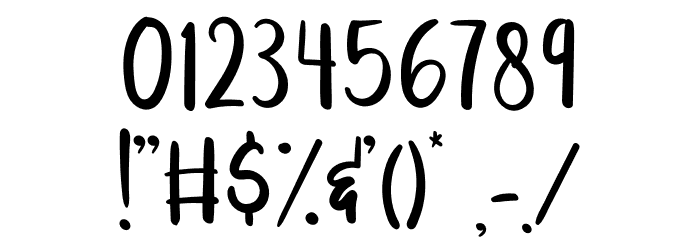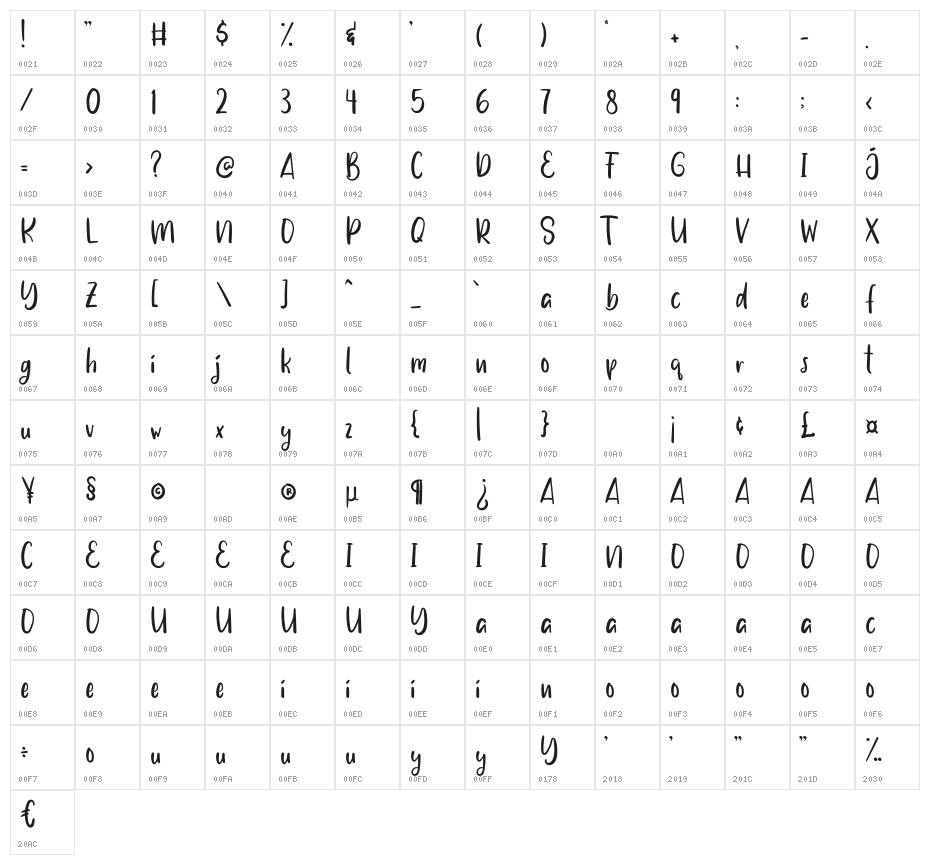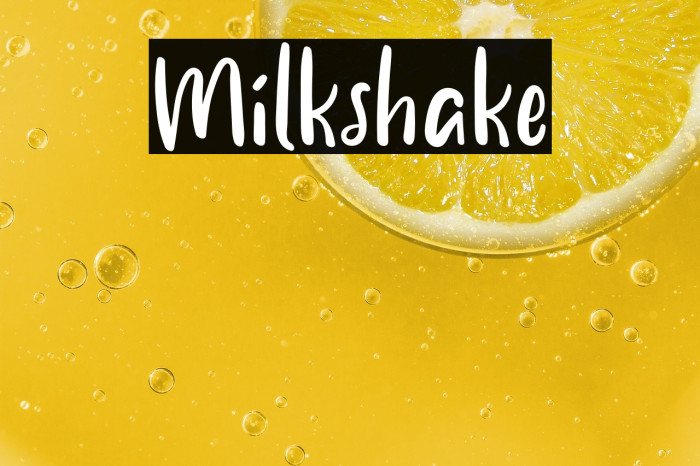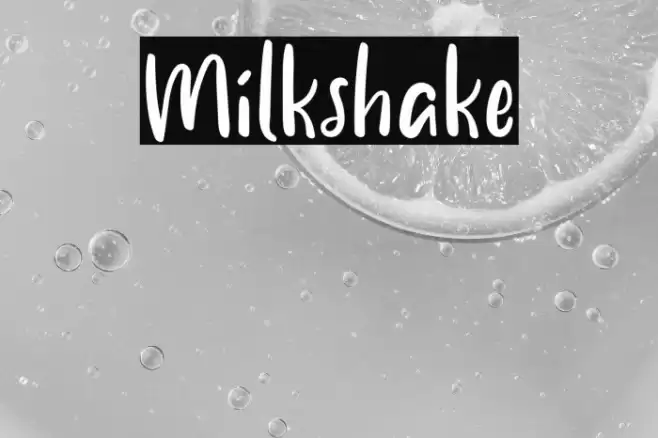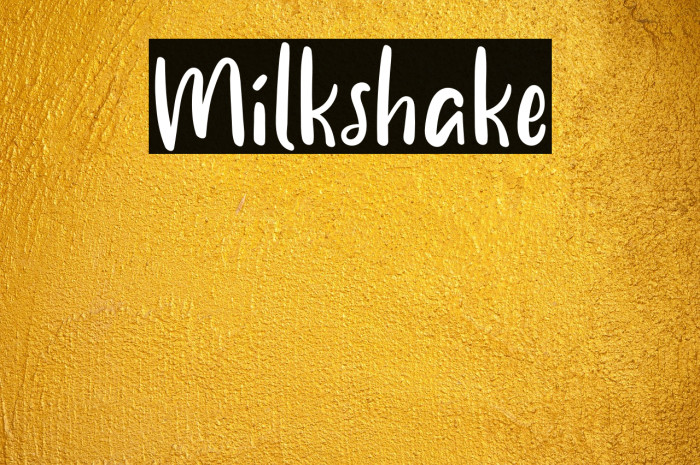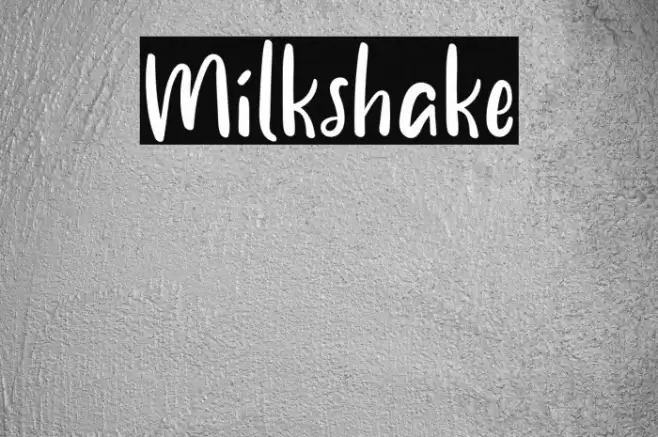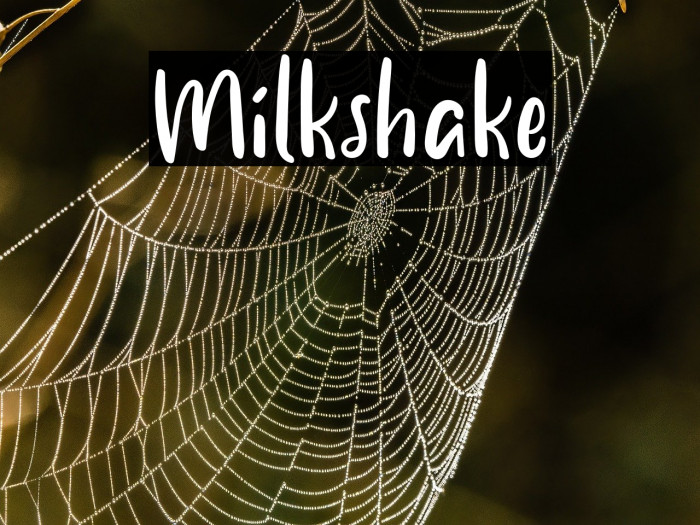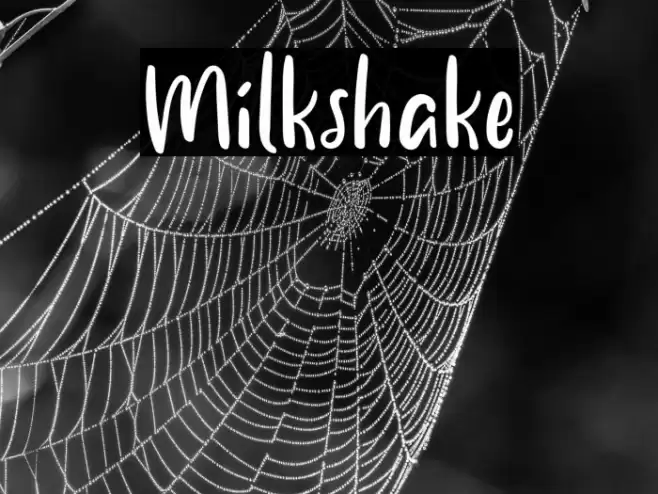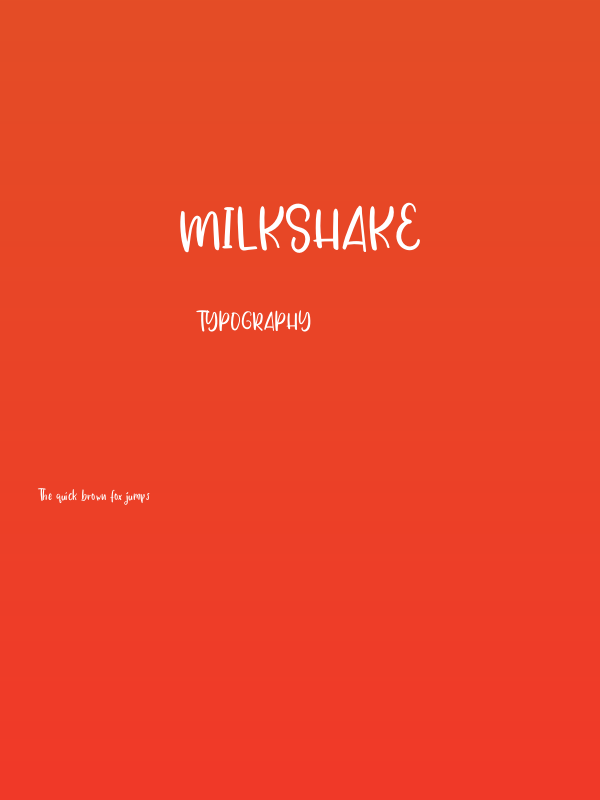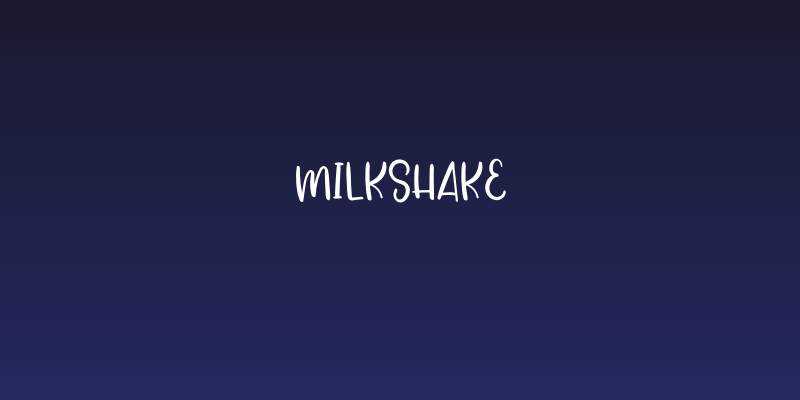
Milkshake Font
Milkshake Description
This font features a playful and casual handwritten style, characterized by its smooth, flowing lines and slightly irregular shapes that give it a personal touch. The letters are bold and rounded, with a consistent stroke width that maintains readability while adding a touch of whimsy. The uppercase letters are tall and slightly narrow, while the lowercase letters are more rounded and open, creating a harmonious balance. The numerals and special characters follow the same playful aesthetic, making this font versatile for various creative projects.